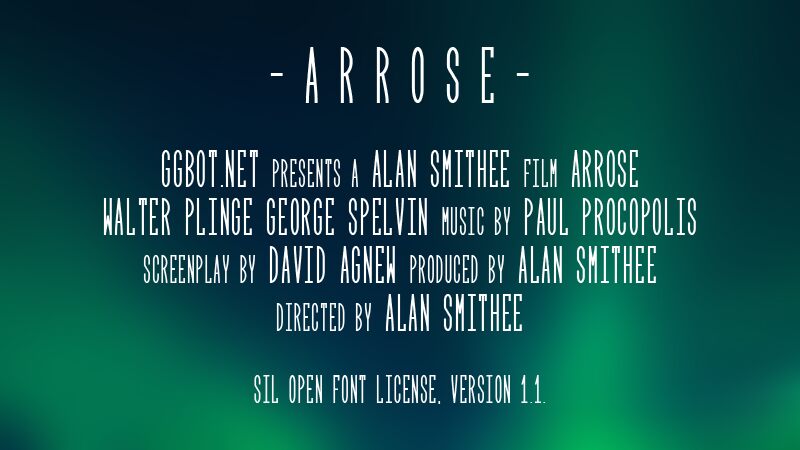
The Arrose Italic font exudes a refined, contemporary elegance with its graceful curves and sleek, condensed silhouette. Designed by GGBotNet, this sans serif masterpiece captivates with its delicate balance of strength and finesse, seamlessly blending light-weight strokes and a streamlined aesthetic. The Arrose Italic's unique character shines through, offering a versatile canvas for designers seeking to elevate their projects with a touch of refined sophistication.
The Arrose Italic's versatility makes it a compelling choice for a wide range of design applications, from editorial layouts and branding initiatives to digital interfaces and packaging designs. Its condensed form and legible, clean lines lend themselves particularly well to impactful headings, eye-catching titles, and concise typographic compositions, where the font's distinctive personality can truly shine.